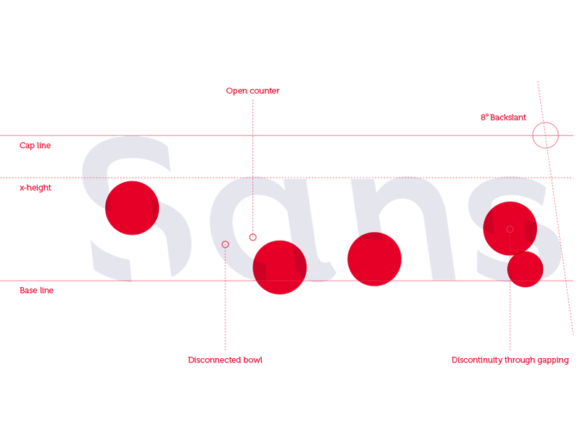
Sans Forgetica: A free font to remember what you read
Sans Forgetica is a free font designed and released by the RMIT University. Another free font? No, it has something special: typeface is scientifically designed to help you remember your study notes!
The creators also created a Chrome extension that will render any web page in Sans Forgetica, but don’t use it everywhere: they suspect that if we get too used to reading in Sans Forgetica, its memory-boosting effect will fade.